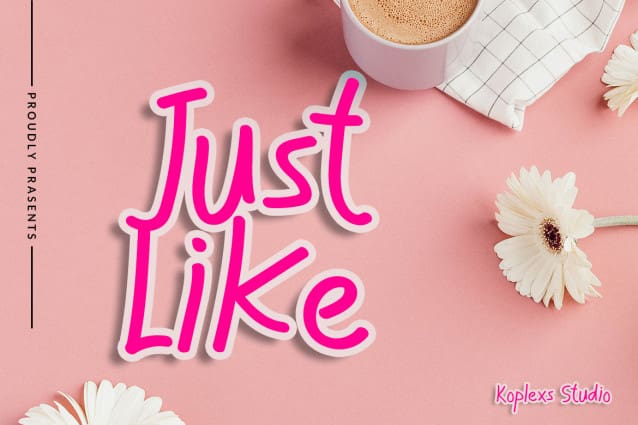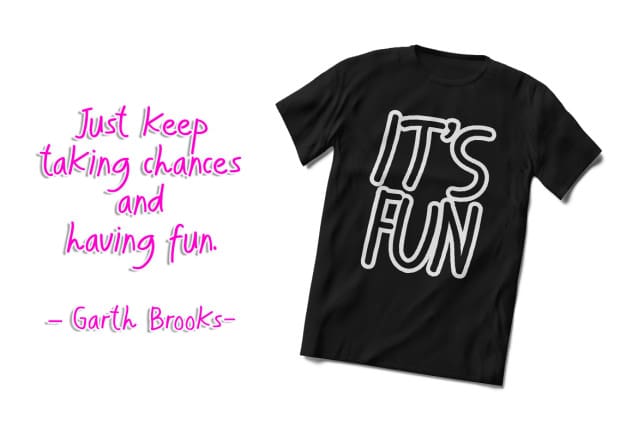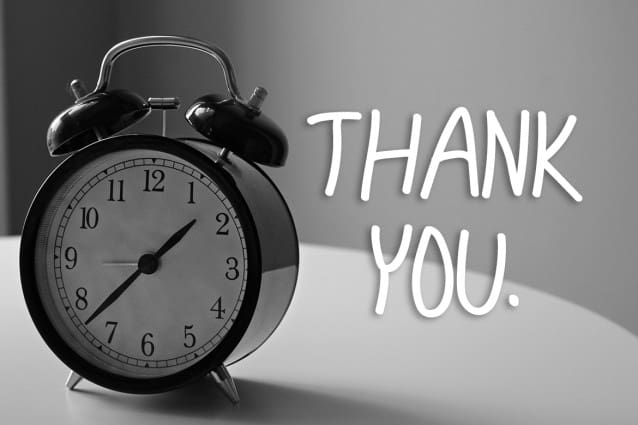
Just Like Font
Just Like Font is a sweet little handwritten font, ready to accompany and brighten up someone’s day. Play with spaces and letters for a different look!
Perfect for star quotes, handwritten notes, sweet greeting cards and of course branding that stands out and more.